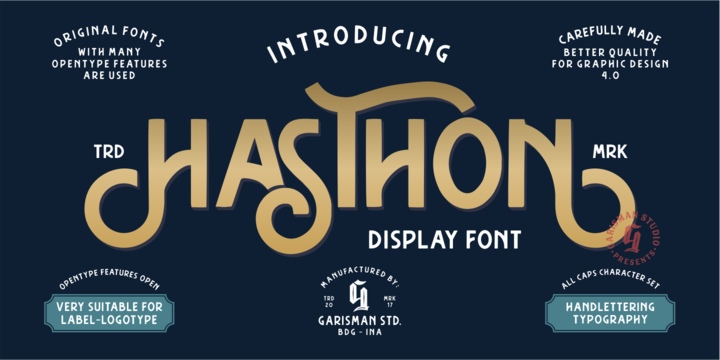
Hasthon Font
Hasthon Font is perfect for handcrafted branding, artisan workshop signage, maker movement logos, craft business materials, handmade product labels, traditional craft marketing, artisanal packaging design, creative studio branding, skilled craftsmanship communications, and authentic maker identity systems.
Hasthon Font is exciting because it celebrates the timeless art of skilled craftsmanship with its distinctive letterforms that embody the precision and dedication of traditional handwork and artisanal mastery. Its character design reflects the careful attention to detail and passionate commitment found in handcrafted goods, making it perfect for brands that want to communicate authenticity, quality craftsmanship, and the human touch that makes handmade products truly special.
The Hasthon Font family includes Light, Regular, Medium, Bold weights, handcrafted Italic variations, Condensed styles, Artisan alternates, Craft flourishes, Maker ornaments, and Workshop elements, providing designers with comprehensive tools for creating authentic craft typography that resonates with makers, artisans, and audiences who value traditional craftsmanship and handmade quality.
Hasthon Font Free Download brings authentic craftsmanship appeal to artisan branding applications, featuring carefully crafted letterforms that honor the tradition of skilled handwork while serving contemporary maker market needs. This distinctive typeface combines artisanal authenticity with professional functionality, creating the perfect solution for craft businesses, maker spaces, and artisan brands that celebrate the beauty of handcrafted goods and traditional skills.
Whether you're developing craft business identities, designing artisan product packaging, creating maker space materials, or producing handcrafted brand communications, Hasthon Font provides the authentic foundation needed for credible craftsmanship positioning. Its artisanal character makes it particularly effective for woodworkers, pottery studios, textile artisans, and craft retailers that serve audiences who appreciate handmade quality and traditional making techniques.
Perfect for craft business owners, artisan marketers, maker space designers, and creative professionals working with handcraft industries, this font offers the authentic qualities essential for successful artisan market positioning. The typeface's handcrafted nature ensures consistent authenticity across both digital craft platforms and traditional workshop applications.
Hasthon Font includes comprehensive craft-focused character sets, artisan-inspired design elements, and workshop-optimized spacing that guarantees superior performance in craftsmanship design applications. Its authentic approach to craft typography makes it indispensable for brands celebrating traditional making and artisan skills. Embrace authentic craftsmanship with Hasthon Font Free Download and create typography that truly honors the maker's touch.